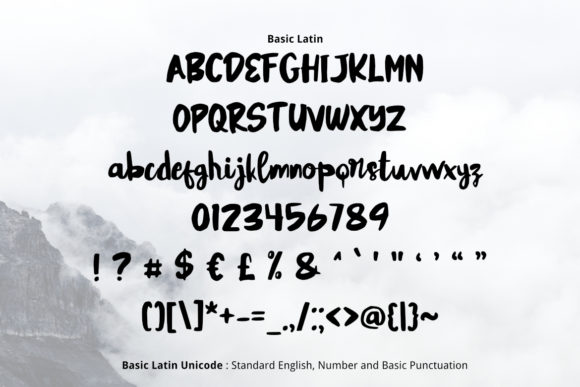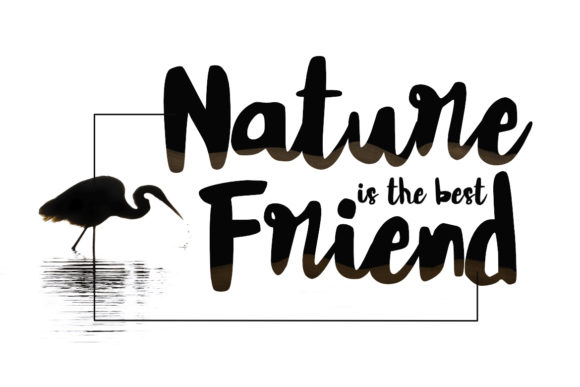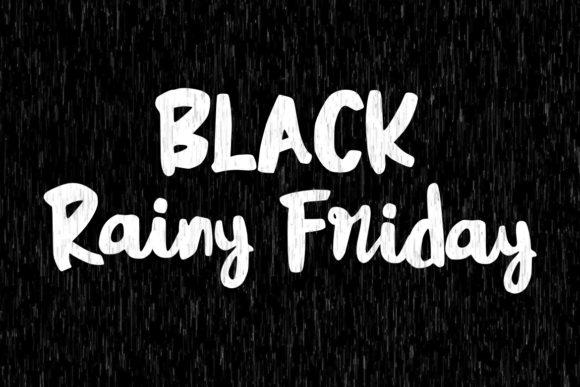
HomeScript FontsGuilty Font Script Fonts Guilty Font FacebookXPinterestWhatsApp Guilty Font Poster 2 Guilty Font Poster 3 Guilty Font Poster 4 About Guilty Font Guilty is a raw and organic script with a playful feel. Use it to add a unique charm to any design project! DOWNLOAD NOW People also explored Stone Marble Bella Canvas 3005 V Neck Sweete Girl Font Teacher School Font Sunflowing Font Kaitlyn Font Christmas Lighter Font Vasavine Font Claristta Font Aloha 314 0 TagsGuilty Font Previous articleInky Bag FontNext articleKabut Senja Font LEAVE A REPLY Cancel reply Comment: Please enter your comment! Name:* Please enter your name here Email:* You have entered an incorrect email address! Please enter your email address here Website: Save my name, email, and website in this browser for the next time I comment. Personal Use Free Arabella Script Personal Use Free Read more about this font Foo Personal Use Free Read more about this font Ailand Personal Use Free Read more about this font Soria Personal Use Free Read more about this font BLOG The 10 Best Handwriting Fonts to Add Personality to Your Designs 10 of the Best Handwriting Fonts for Adding Personality to Your Designs There will undoubtedly be no other better choice than handwriting fonts to give... How to Install and Use Fonts on Windows, macOS, and Web Projects Fonts That Capture the Spirit of New York City Best Fonts for T-Shirt Design – Top 2025 Picks